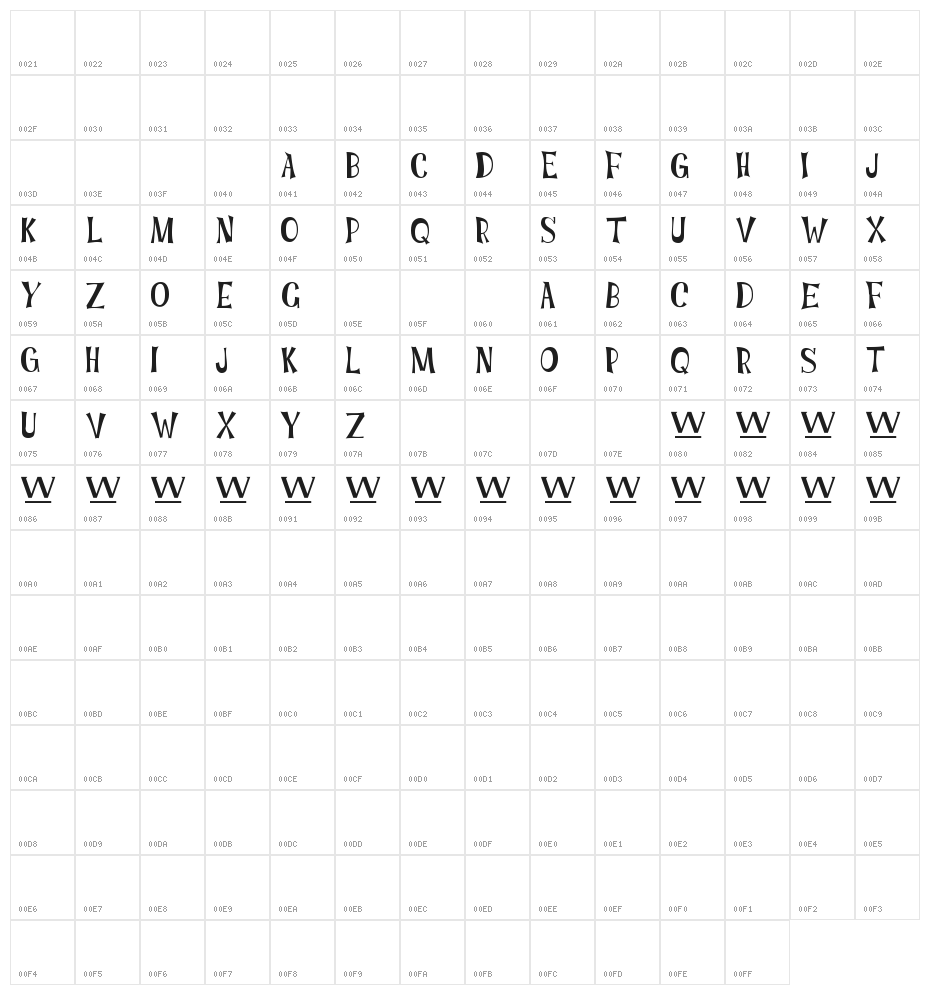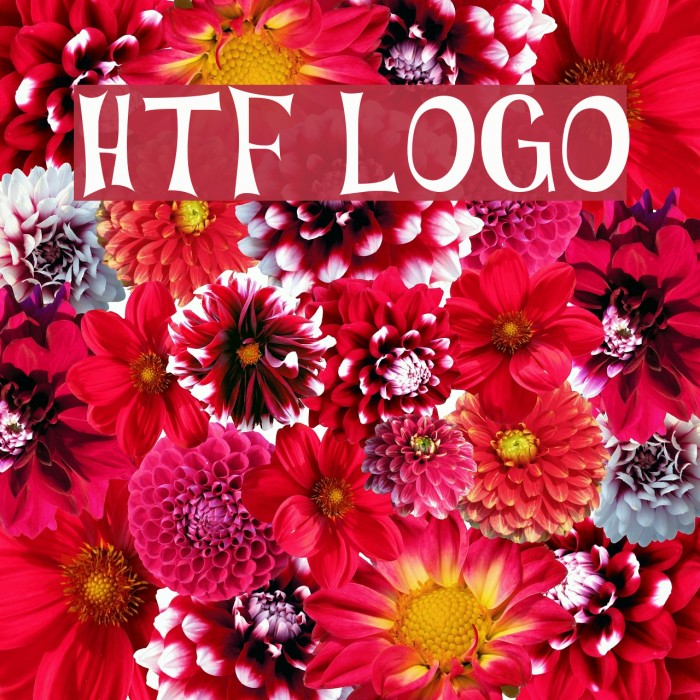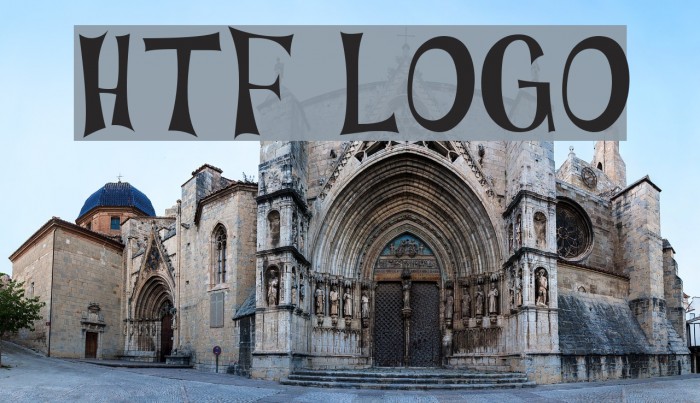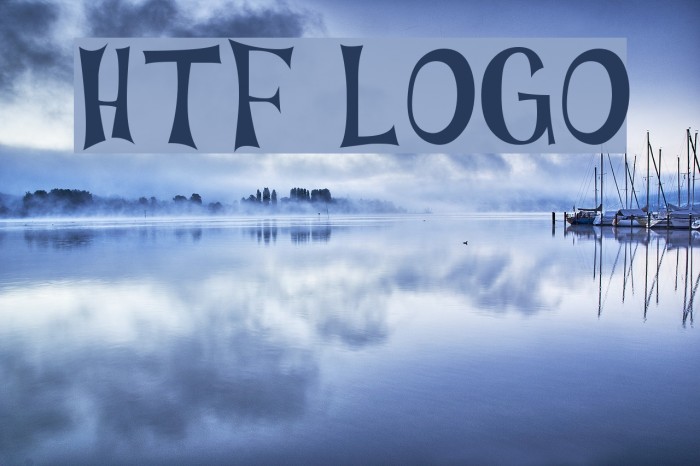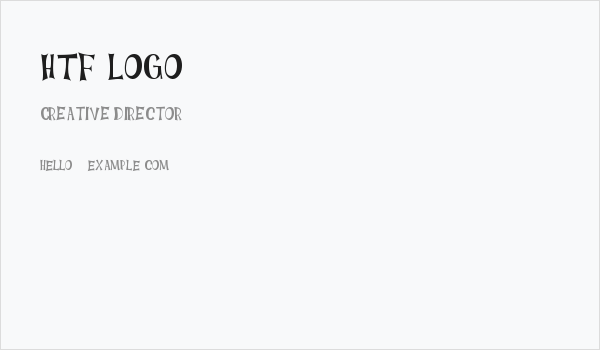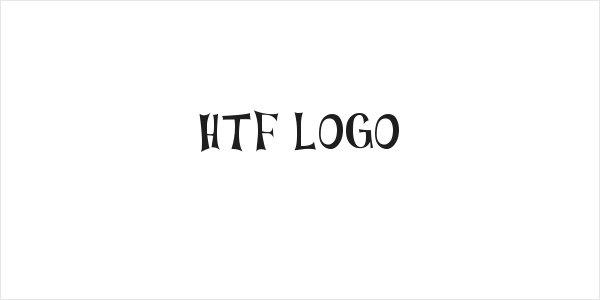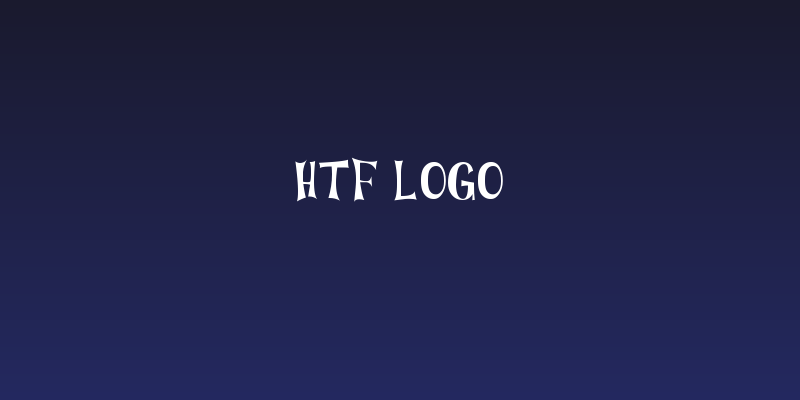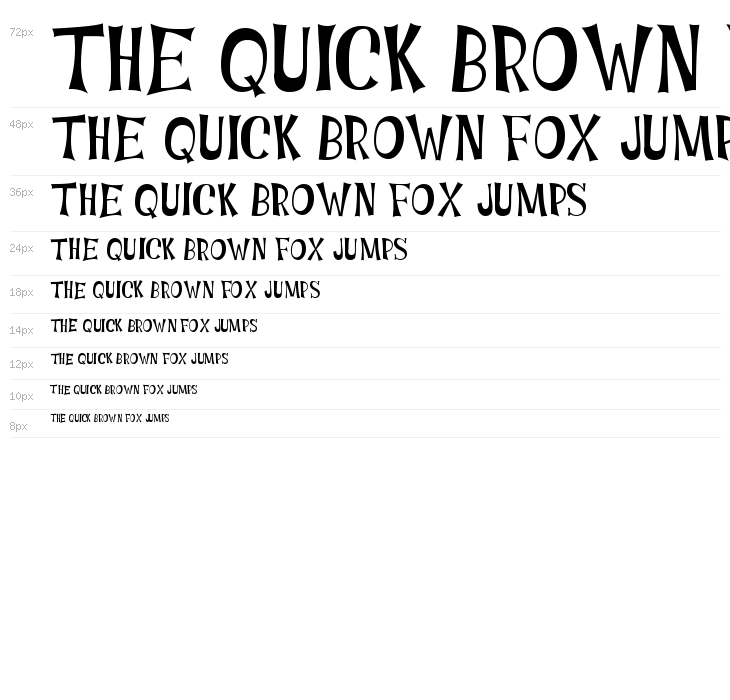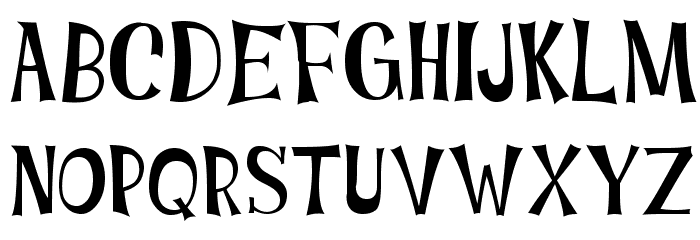
HTF Logo Font
HTF Logo Description
This font features a bold and dynamic style with exaggerated serifs and a playful, whimsical flair. The characters exhibit a unique blend of sharp angles and smooth curves, creating a sense of movement and energy. The uppercase letters are particularly striking, with varying widths and distinctive shapes that make each character stand out. The overall design is reminiscent of vintage circus or carnival themes, making it ideal for projects that require a touch of nostalgia and fun. The font's boldness ensures high readability, even at smaller sizes, while its decorative elements add a layer of visual interest.
| Use Case | Logos, Posters, Branding |
| Proposed Projects | Ideal for posters, logos, and branding projects that require a playful and nostalgic touch. |